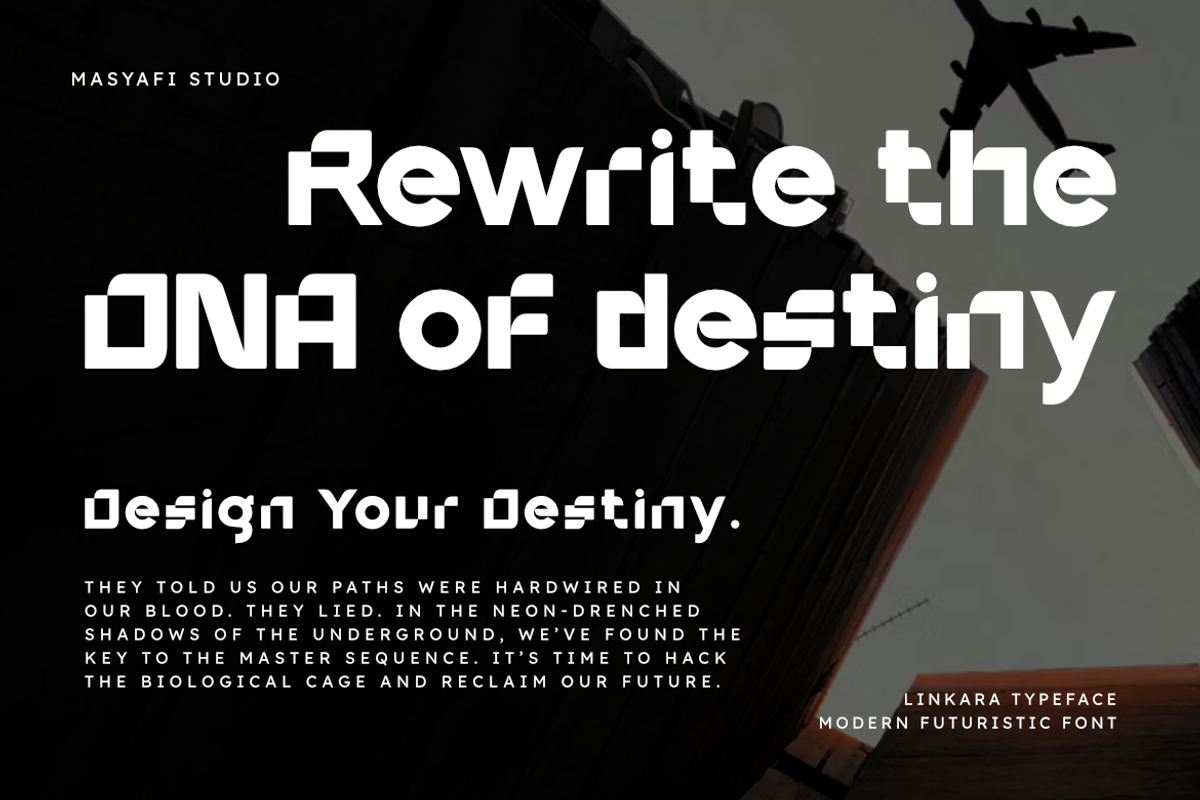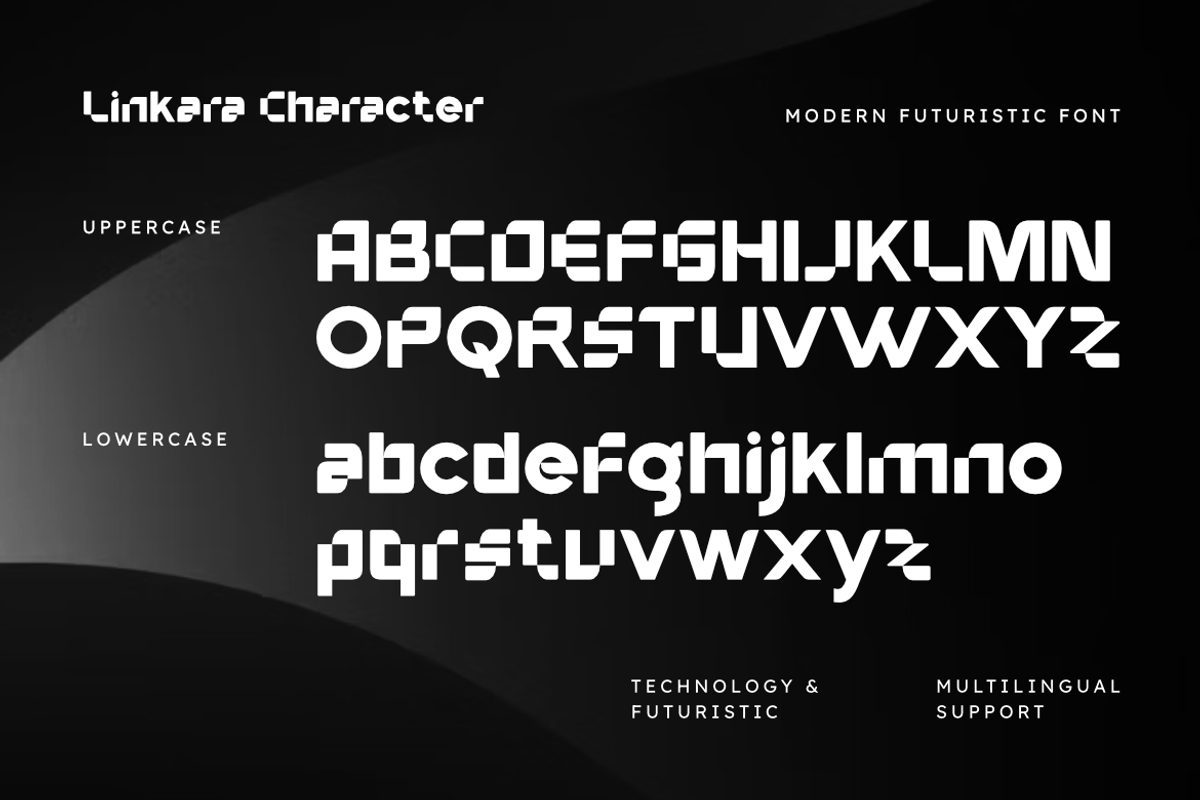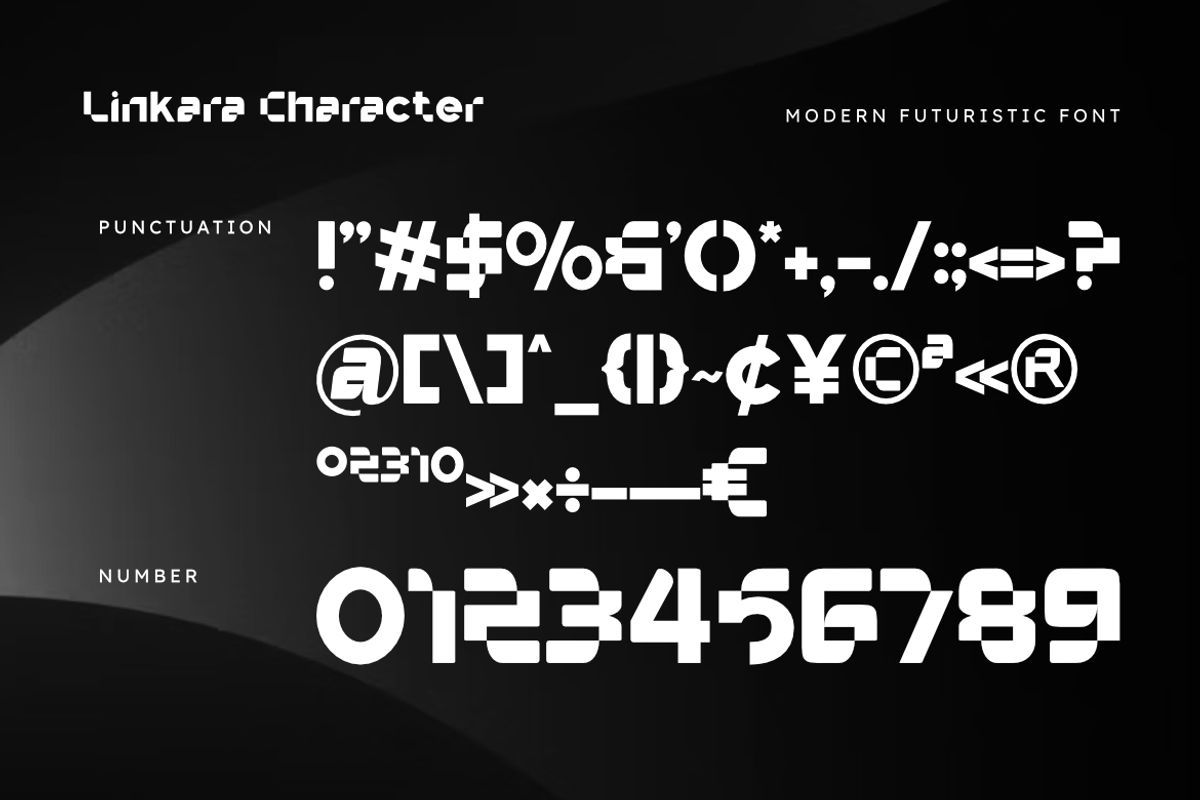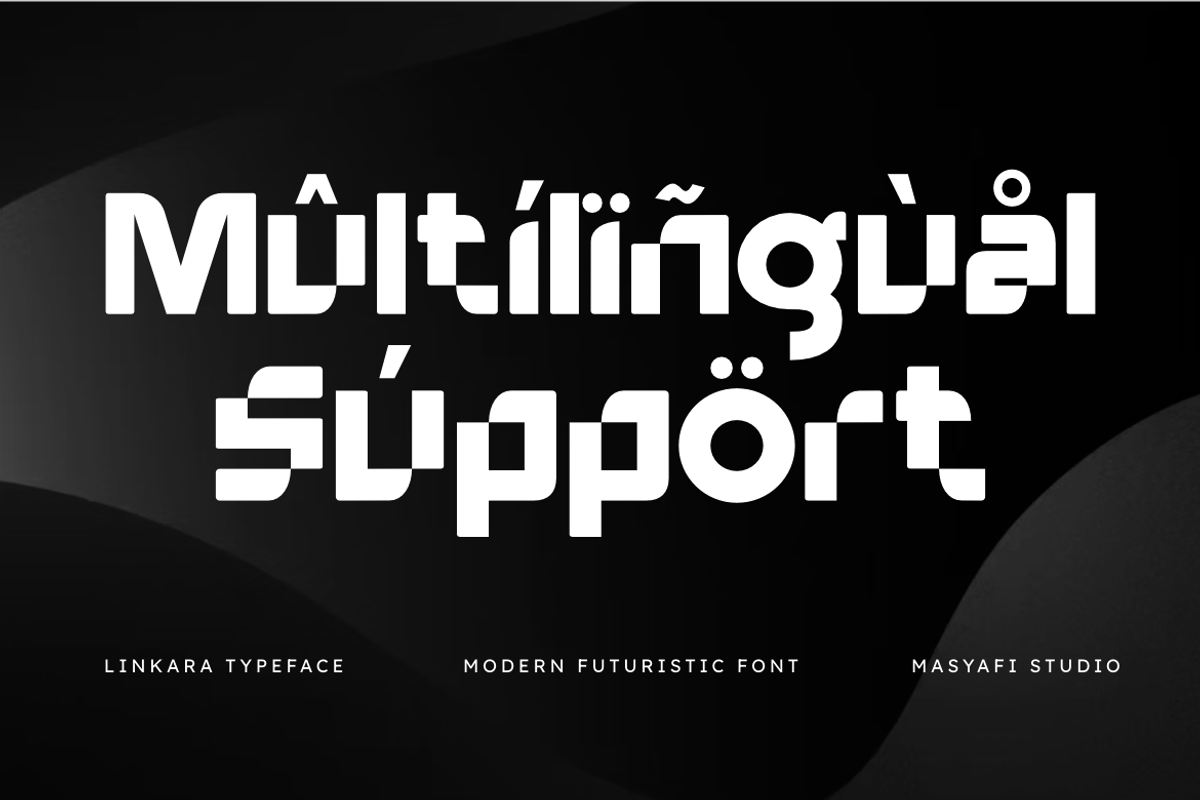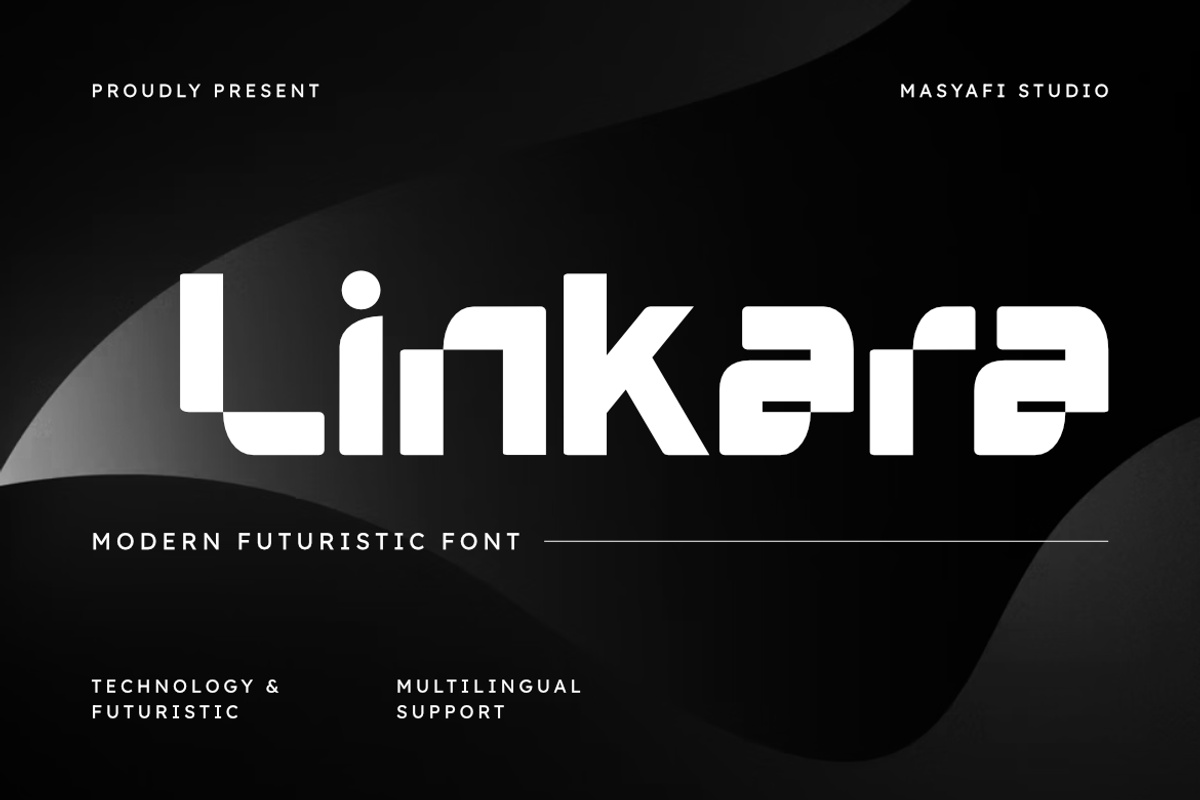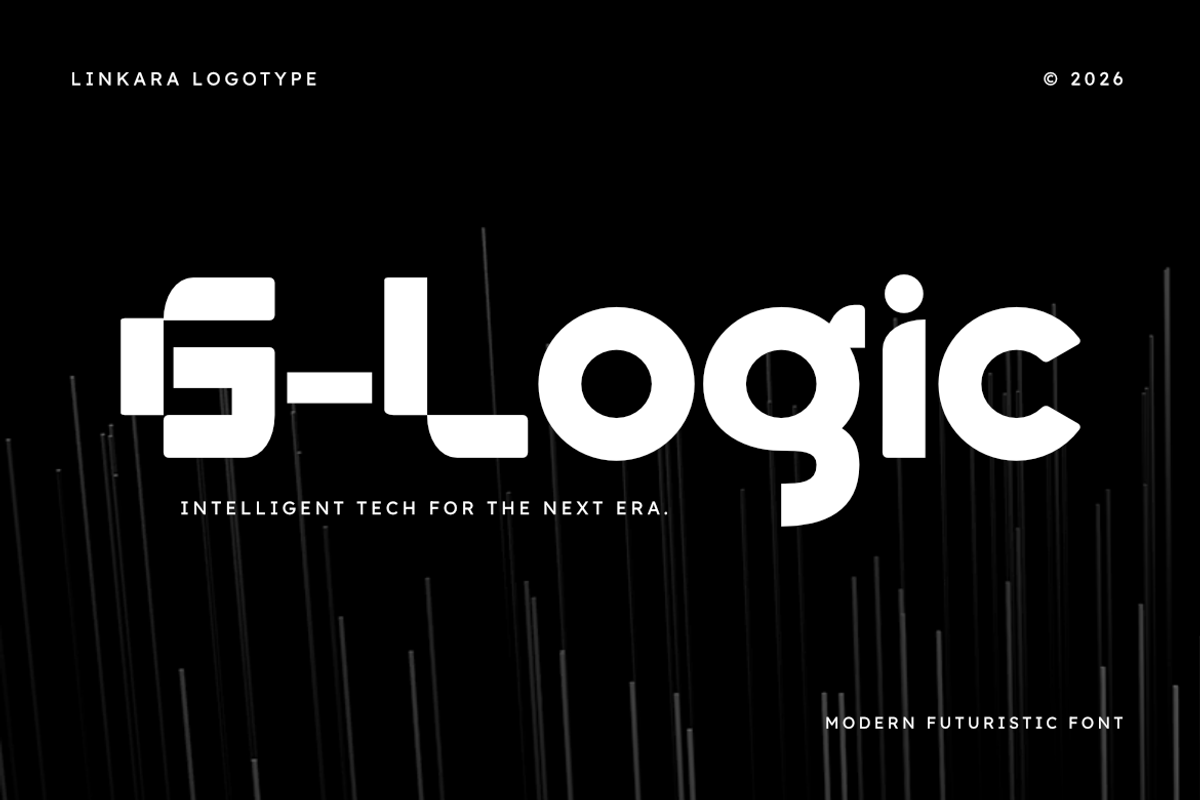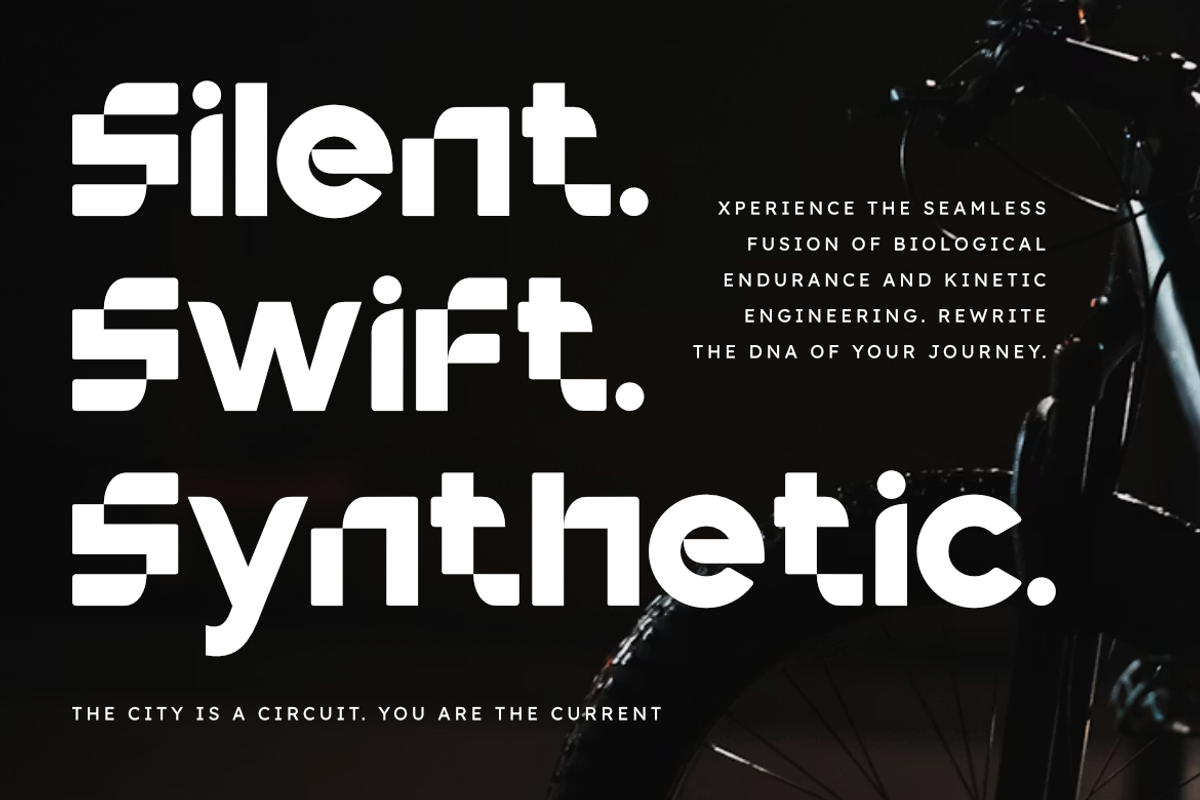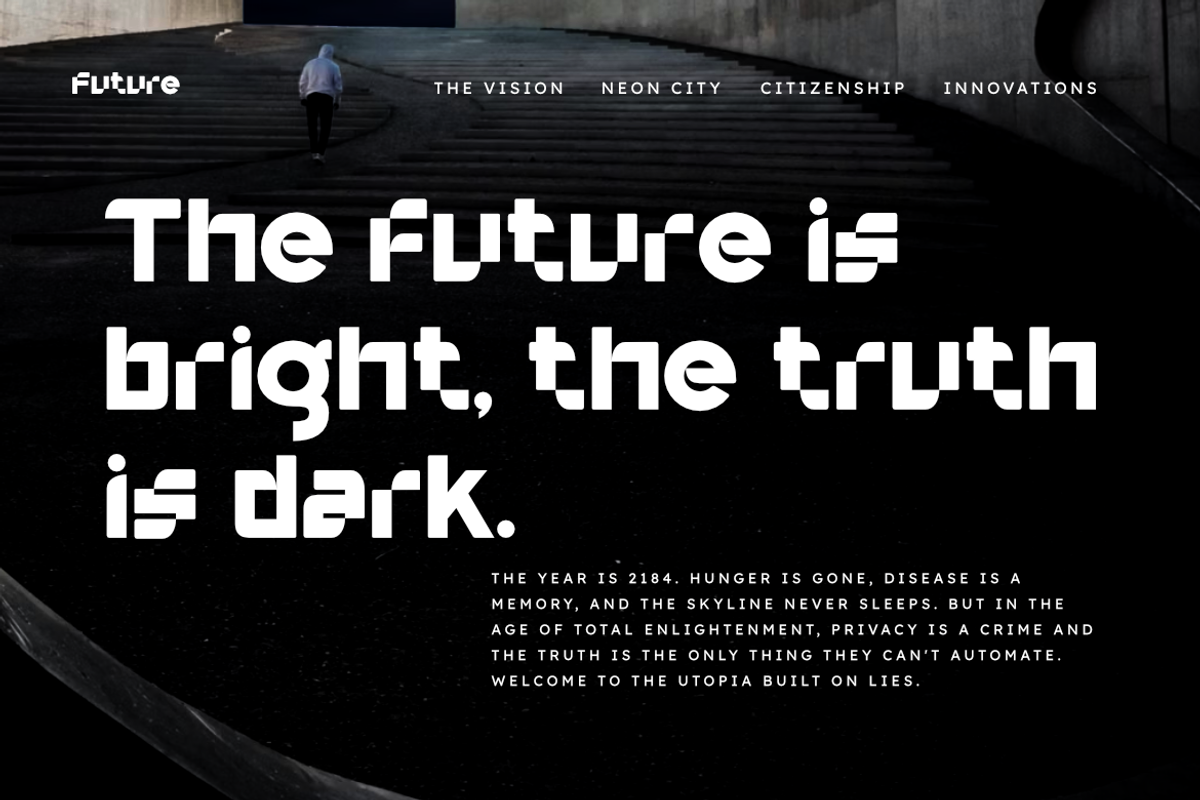
Linkara | Modern Futuristic Tech
Elevate your visual identity with Linkara, a modern futuristic font that pushes the boundaries of contemporary typography. Designed for the forward-thinkers, Linkara features a sophisticated blend of solid geometric blocks and minimalist gaps, creating a sense of speed and digital precision.
Whether you're building a brand for a tech startup, designing esports merchandise, or creating immersive web headers, Linkara provides the professional edge needed to stand out in a crowded market. Its "tech-heavy" look makes it an essential asset for any sci-fi or innovation-themed project.